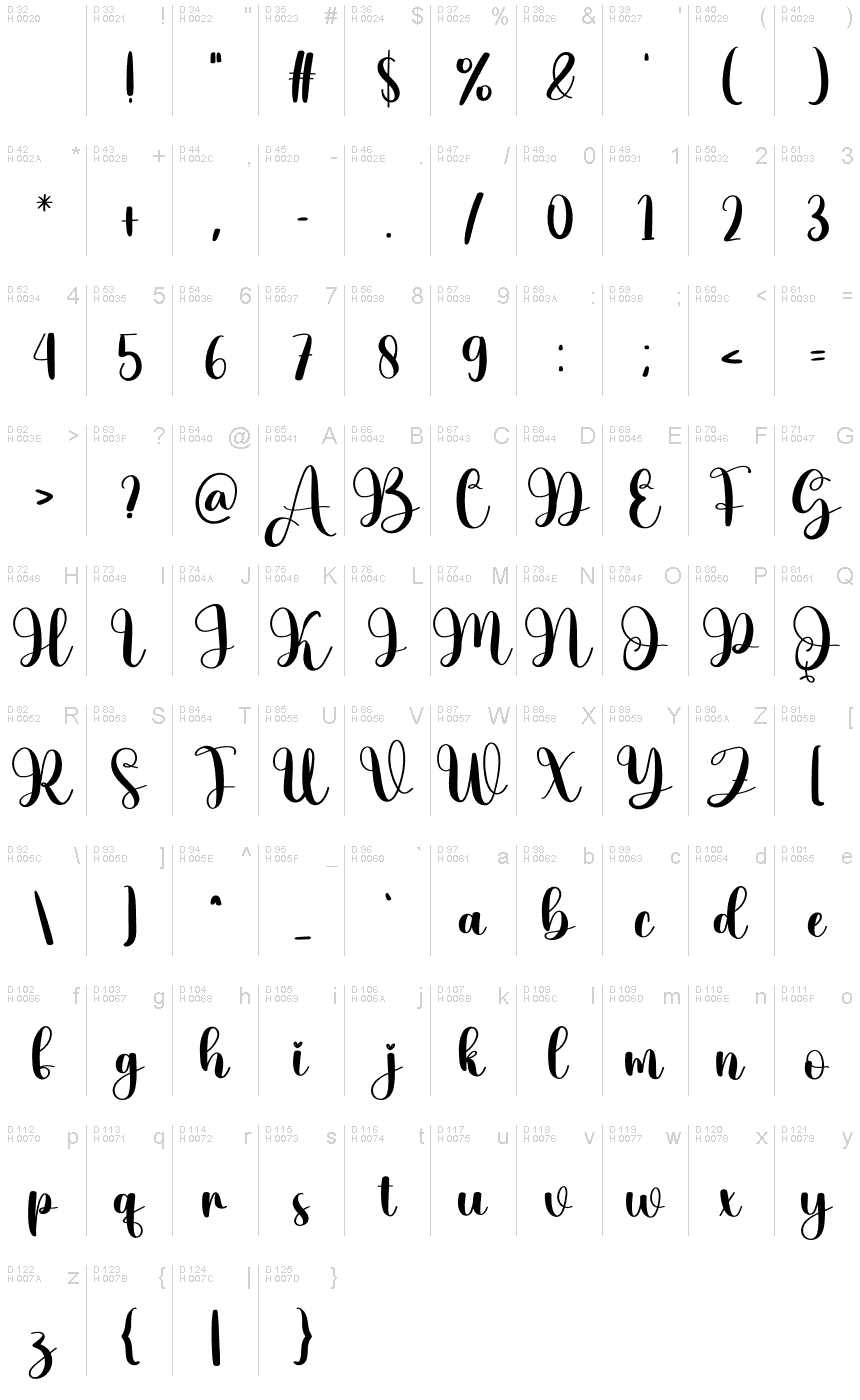
October
October, a captivating calligraphy font by Scratchones, exudes elegance and grace. With its semi-bold weight, it strikes the perfect balance between sophistication and readability.
October lends itself beautifully to wedding invitations, creating an air of romance and enchantment. Its flowing strokes make it ideal for branding luxurious beauty or fashion products, capturing attention with its timeless allure. Whether used in logo designs or editorial layouts, this font adds a touch of refinement to any project.
Let October elevate your creative endeavors with its exquisite calligraphic style.
The latest style letters are perfect for wall displays, wedding invitations, social media post logos, advertisements, product packaging, product designs, labels, photography, watermarks, invitations, stationery, and any project that requires taste handwriting.
October lends itself beautifully to wedding invitations, creating an air of romance and enchantment. Its flowing strokes make it ideal for branding luxurious beauty or fashion products, capturing attention with its timeless allure. Whether used in logo designs or editorial layouts, this font adds a touch of refinement to any project.
Let October elevate your creative endeavors with its exquisite calligraphic style.
The latest style letters are perfect for wall displays, wedding invitations, social media post logos, advertisements, product packaging, product designs, labels, photography, watermarks, invitations, stationery, and any project that requires taste handwriting.